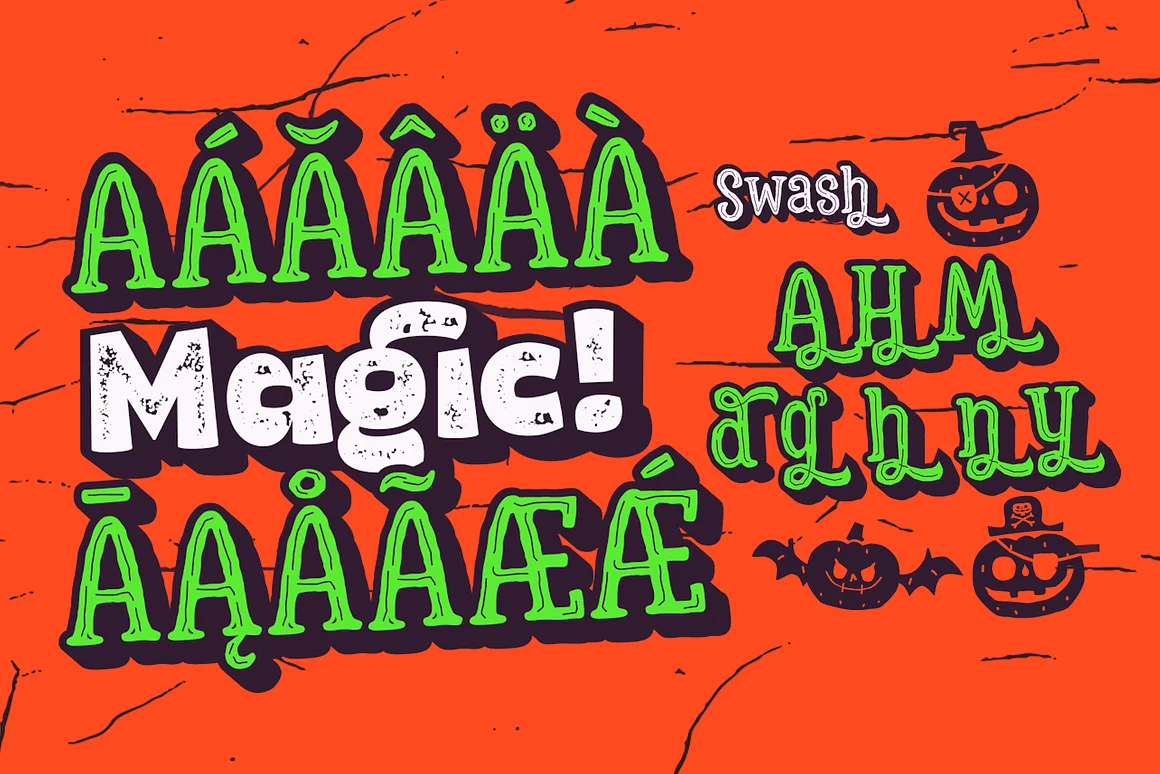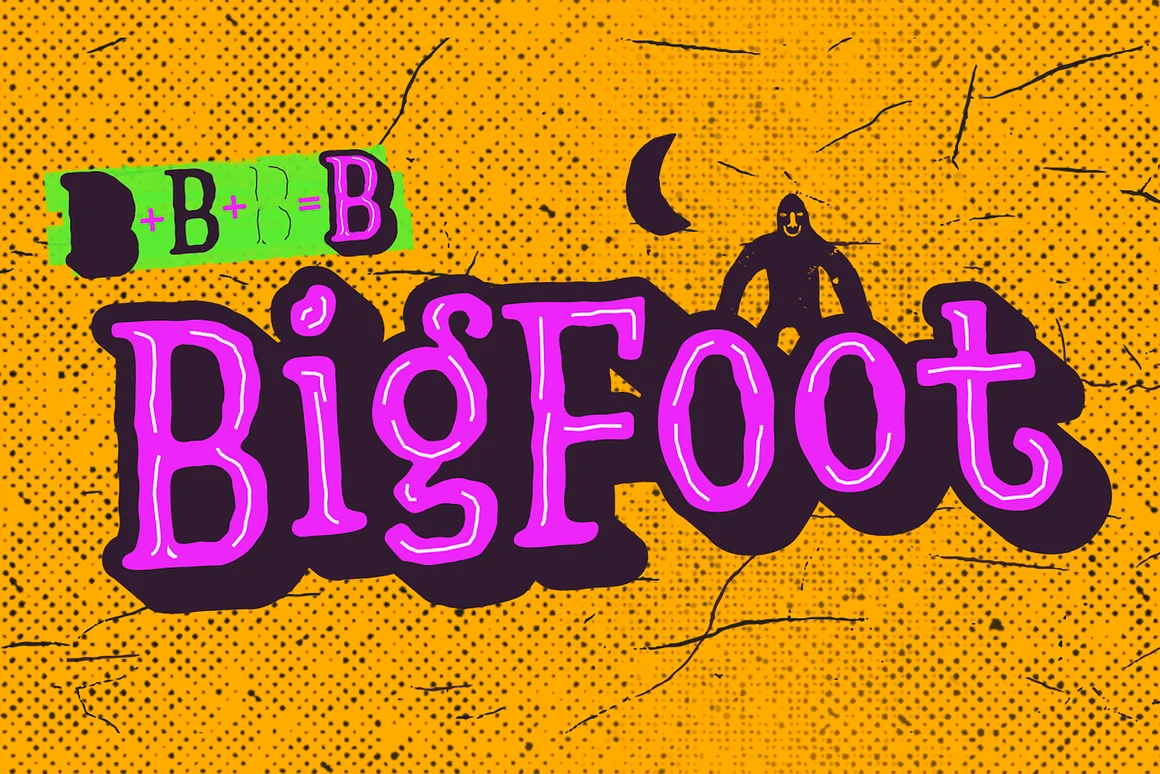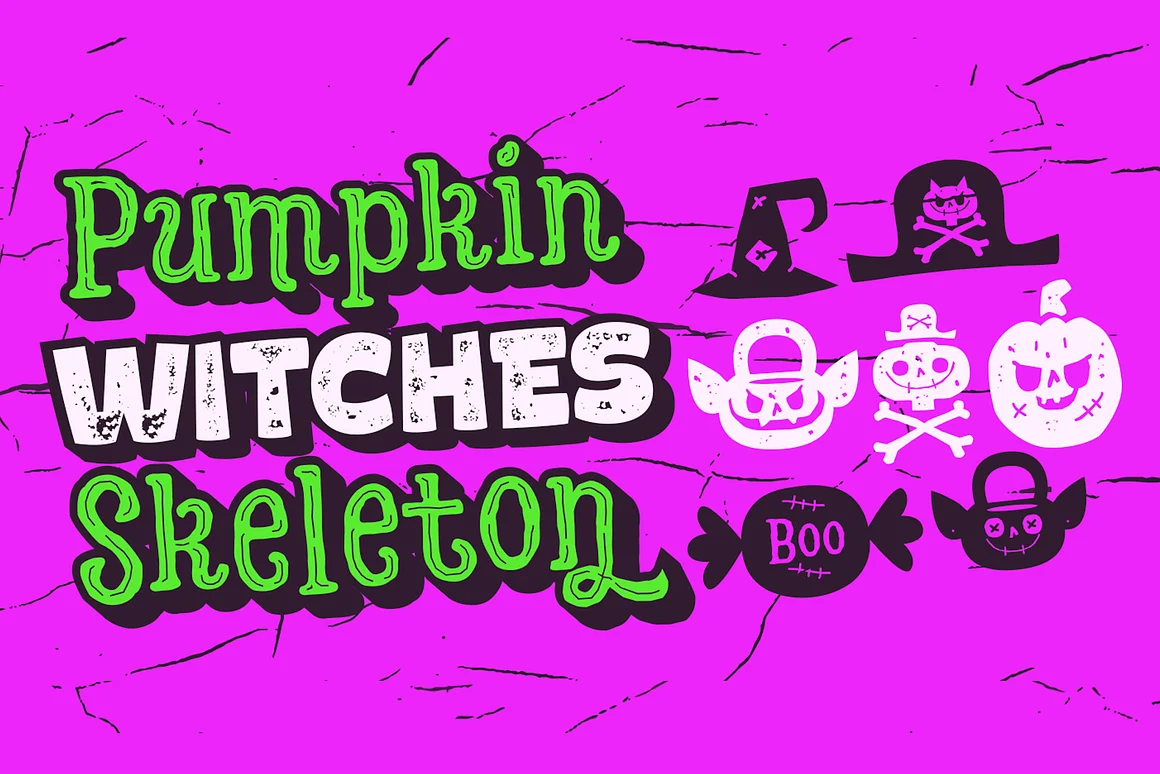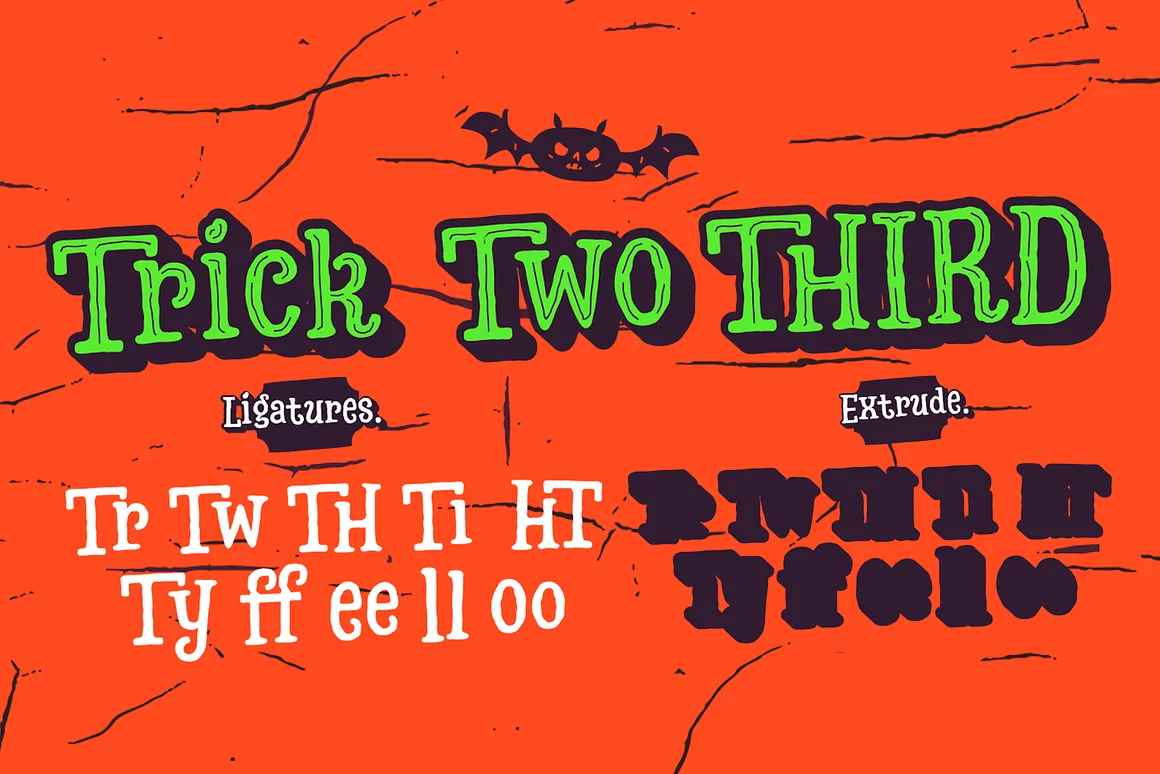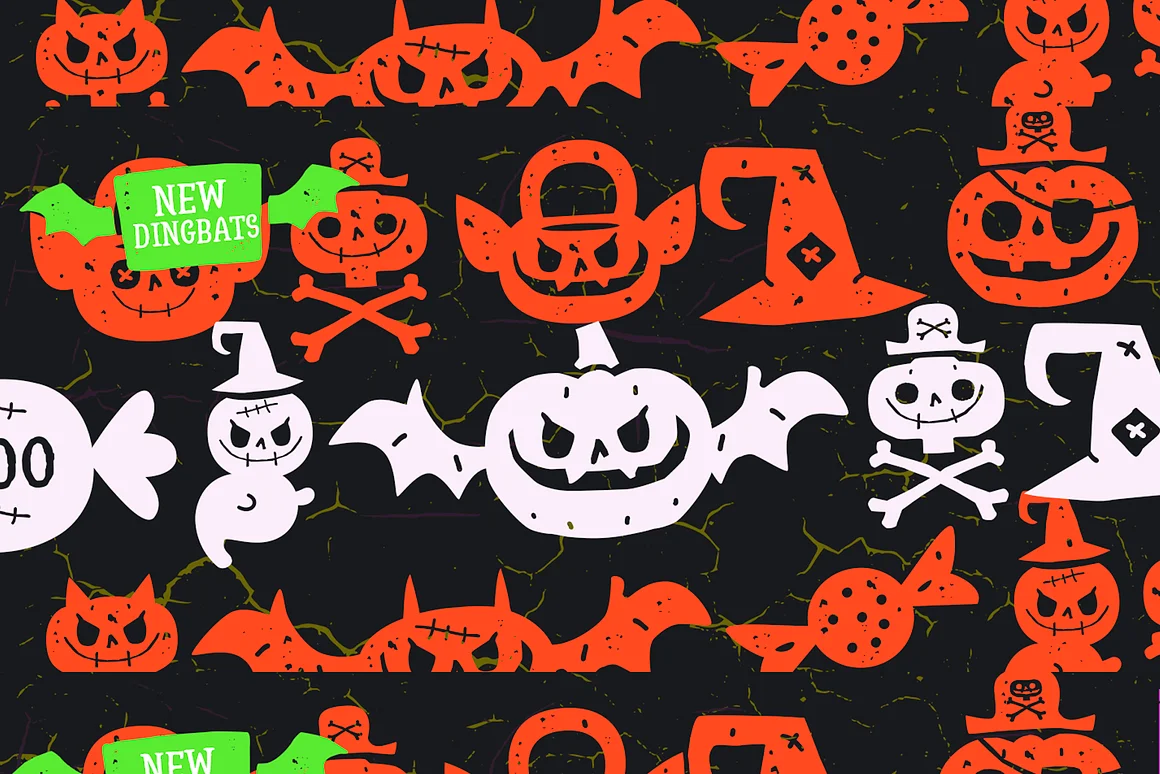
Hatter Halloween Font
This whimsically twisted font is perfect for Alice in Wonderland Halloween themes, mad tea party horror events, wonderland nightmare decorations, twisted fairy tale celebrations, eccentric Halloween parties, peculiar costume events, whimsically dark Halloween branding, fantastical horror marketing, bizarrely elegant Halloween displays, and delightfully mad Halloween messaging materials.
Hatter Halloween Font is exciting because it brilliantly merges the beloved whimsy of the Mad Hatter with the spine-tingling atmosphere of Halloween through its eccentrically crafted letterforms that capture the delightful madness of a wonderland gone wonderfully wrong. The font features charmingly unhinged characters with tea party proportions and mad hatter details that evoke the enchanting insanity of Halloween celebrations where fairy tale magic meets supernatural terror, incorporating top hat flourishes and clock-inspired elements that create typography as delightfully mad and mysteriously charming as a midnight tea party hosted by ghosts in a haunted wonderland. Each letter showcases the perfect balance between whimsical charm and eerie madness that makes both the Mad Hatter and Halloween such beloved celebrations of the beautifully bizarre, with off-kilter curves and fantastically twisted accents that transform ordinary text into expressions of delightful Halloween madness that invite audiences down the rabbit hole into a wonderland of spooky surprises.
The Hatter Halloween Font family includes whimsically mad variations: Regular, Bold, Light, Wonderland, and Twisted versions. The collection features special mad hatter elements including top hat accents, teacup details, clock flourishes, and wonderland ornaments. Additional components include mad borders, tea party frames, wonderland decorations, and whimsically twisted ornamental designs that enhance the font's hatter Halloween appeal and create cohesive mad wonderland themes.
Fantasy event creators and whimsical Halloween enthusiasts will find Hatter Halloween Font to be a perfect tool for creating delightfully mad Halloween communications that celebrate the charming intersection of fairy tale wonder and Halloween magic. This whimsically crafted font transforms ordinary Halloween messaging into wonderland expressions that resonate with audiences who appreciate the delightful madness and fantastical charm that make mad hatter themes such enchanting elements of whimsical Halloween celebrations and fantasy horror entertainment.
The typeface includes comprehensive character support with wonderland styling that maintains excellent readability while conveying the whimsical madness and fantastical atmosphere of hatter Halloween celebrations. The font's eccentrically charming design ensures delightfully mad results across both children's wonderland applications and adult fantasy Halloween productions.
Perfect for fantasy Halloween parties, wonderland celebrations, whimsically dark events, and delightfully mad seasonal marketing, this font delivers charmingly eccentric visual impact that communicates whimsical madness, fantastical charm, and the delightfully twisted atmosphere that makes mad hatter Halloween themes such enchantingly bizarre and wonderfully mad celebrations of fantastical horror.